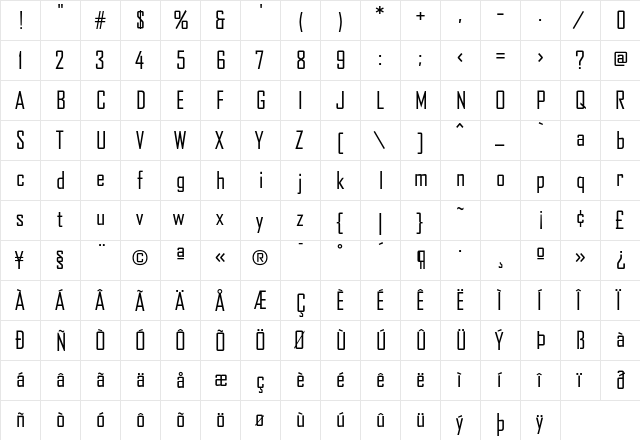
Bureau Agency FB Regular
Design Context for Bureau Agency FB Typeface
Bureau Agency FB takes a measured approach to typography — its balanced proportions and neutral character make it a reliable workhorse for both digital and print work.